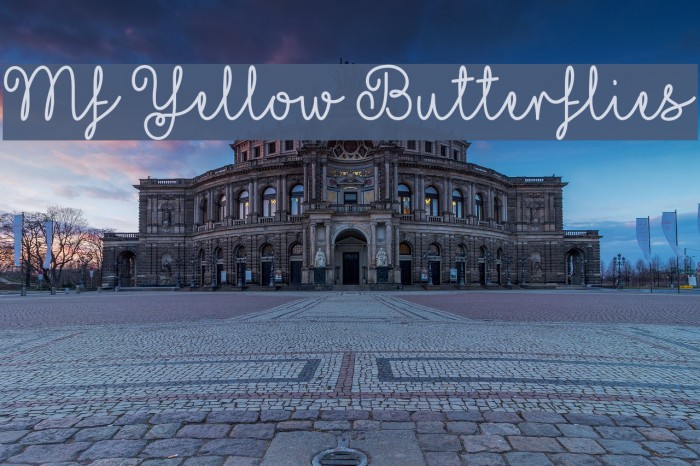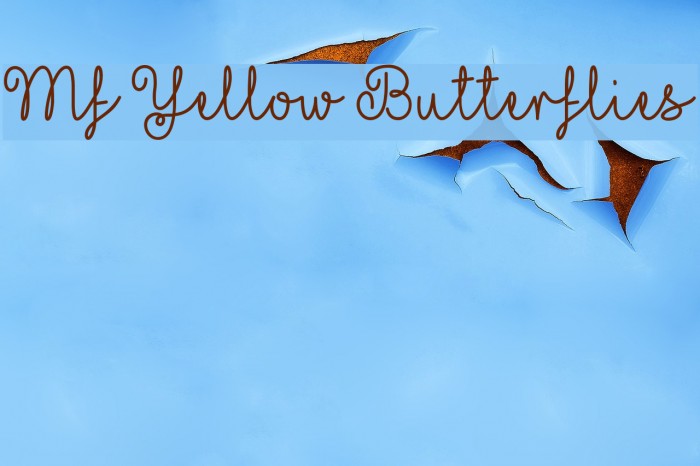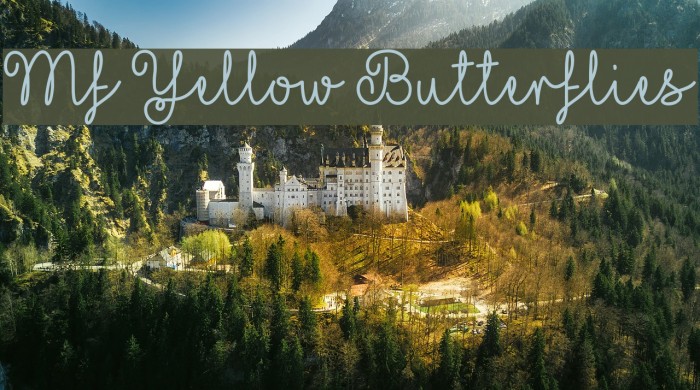
Mf Yellow Butterflies Font
This font features a playful and whimsical script style, characterized by its flowing, cursive letters. The uppercase letters exhibit a unique looped design, adding a decorative flair to each character. The lowercase letters maintain a consistent, smooth flow, enhancing readability while retaining an artistic touch. Numbers and special characters are crafted with the same attention to detail, ensuring a cohesive look across all elements. The overall design is light and airy, making it suitable for projects that require a touch of elegance and fun.
A playful, cursive script font with decorative loops and smooth flow.
- Proposed Projects: Ideal for greeting cards, invitations, branding, and creative projects that require a whimsical touch.
- Use Case: Logos, Invitations, Greeting Cards